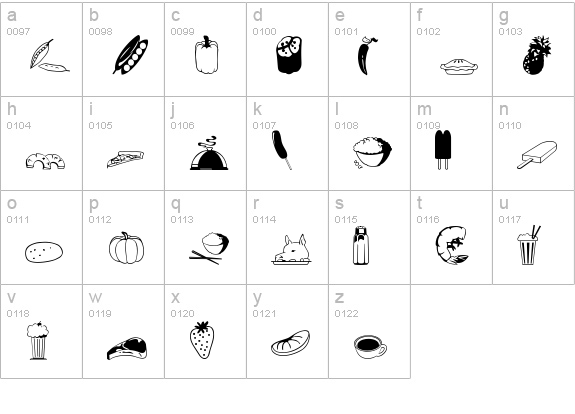
Introducing FOOD! font - a delectable and mouth-watering typeface that will make your text look absolutely delicious! This unique font is designed with food lovers in mind, featuring playful and appetizing characters that are sure to whet your appetite. Whether you're creating a menu, recipe card, food blog, or any other culinary-themed project, FOOD! font will add a touch of flavor and charm to your designs. Best of all, FOOD! font is completely free to download at FontsMarket.com. Yes, you heard that right - this delectable font is freely available for you to enjoy and use in your projects without any cost. So why wait? Add a dash of culinary creativity to your designs with FOOD! font today!